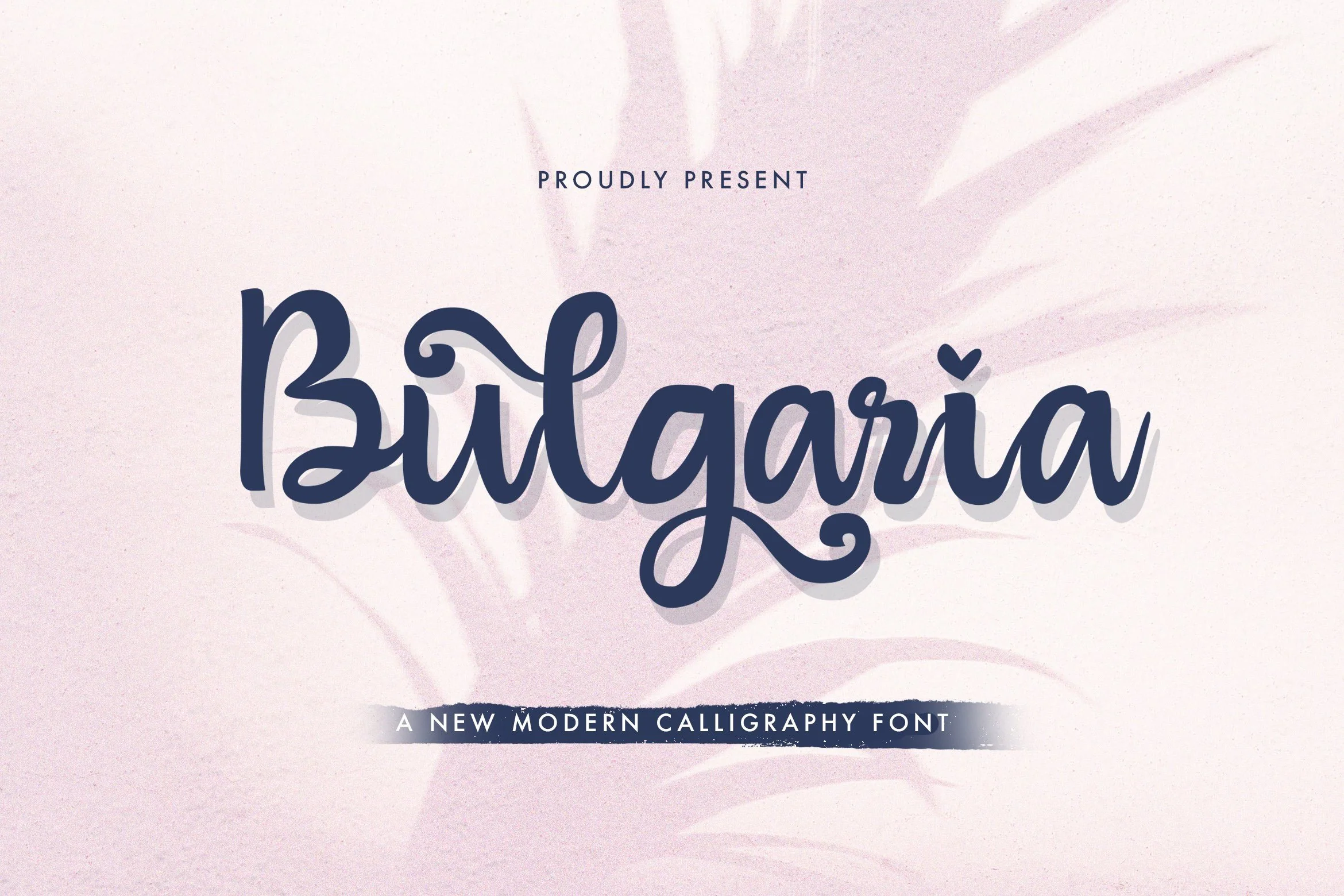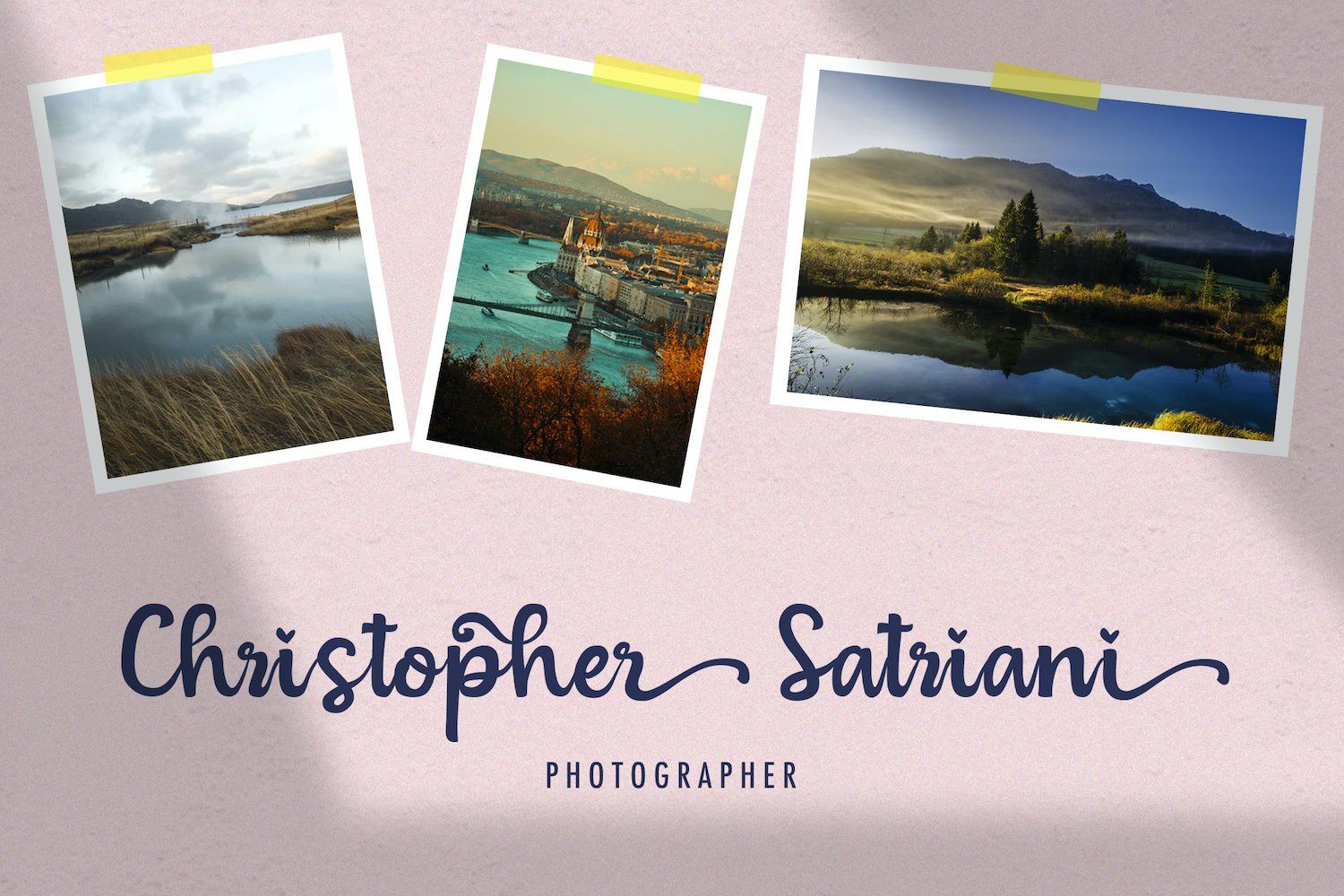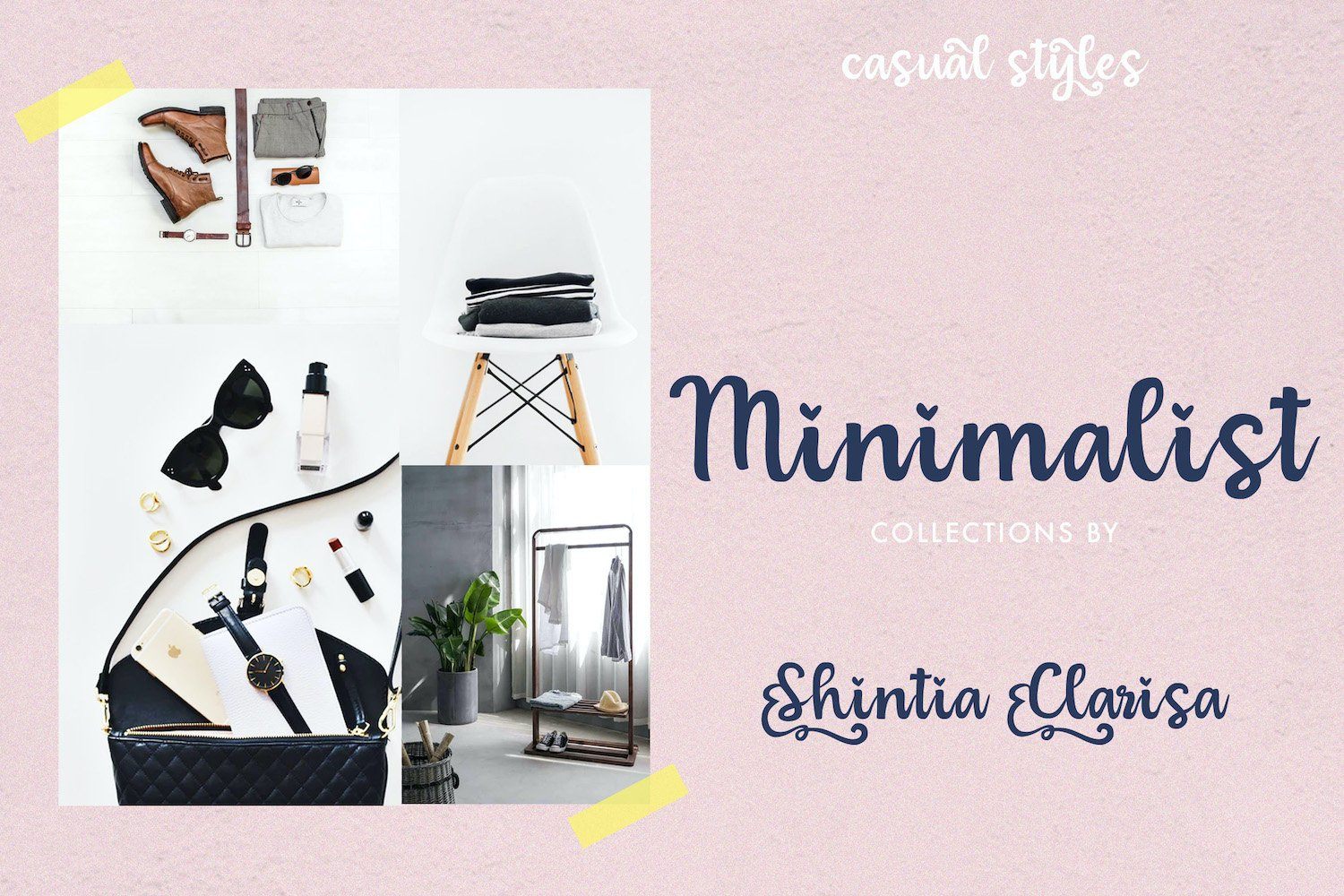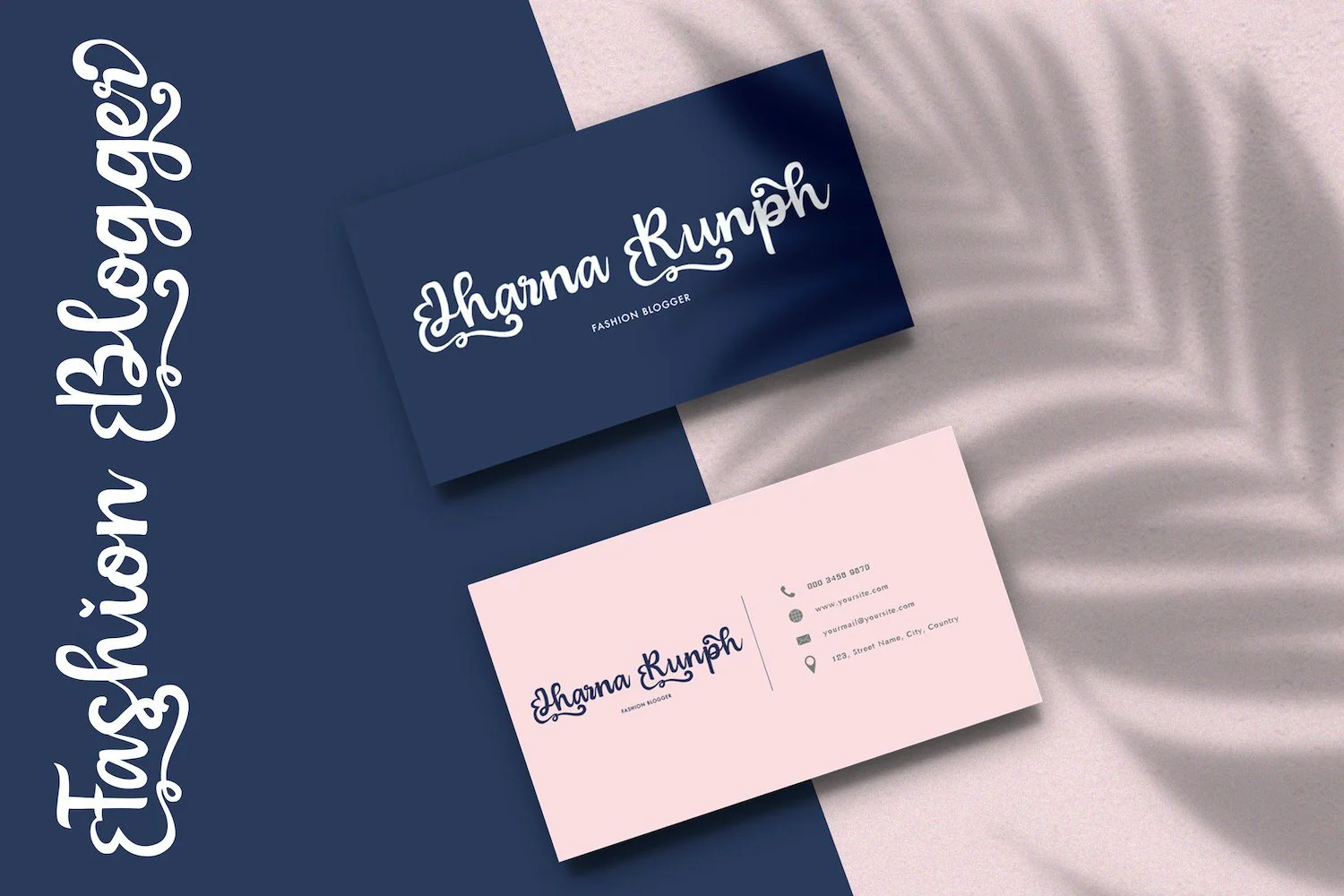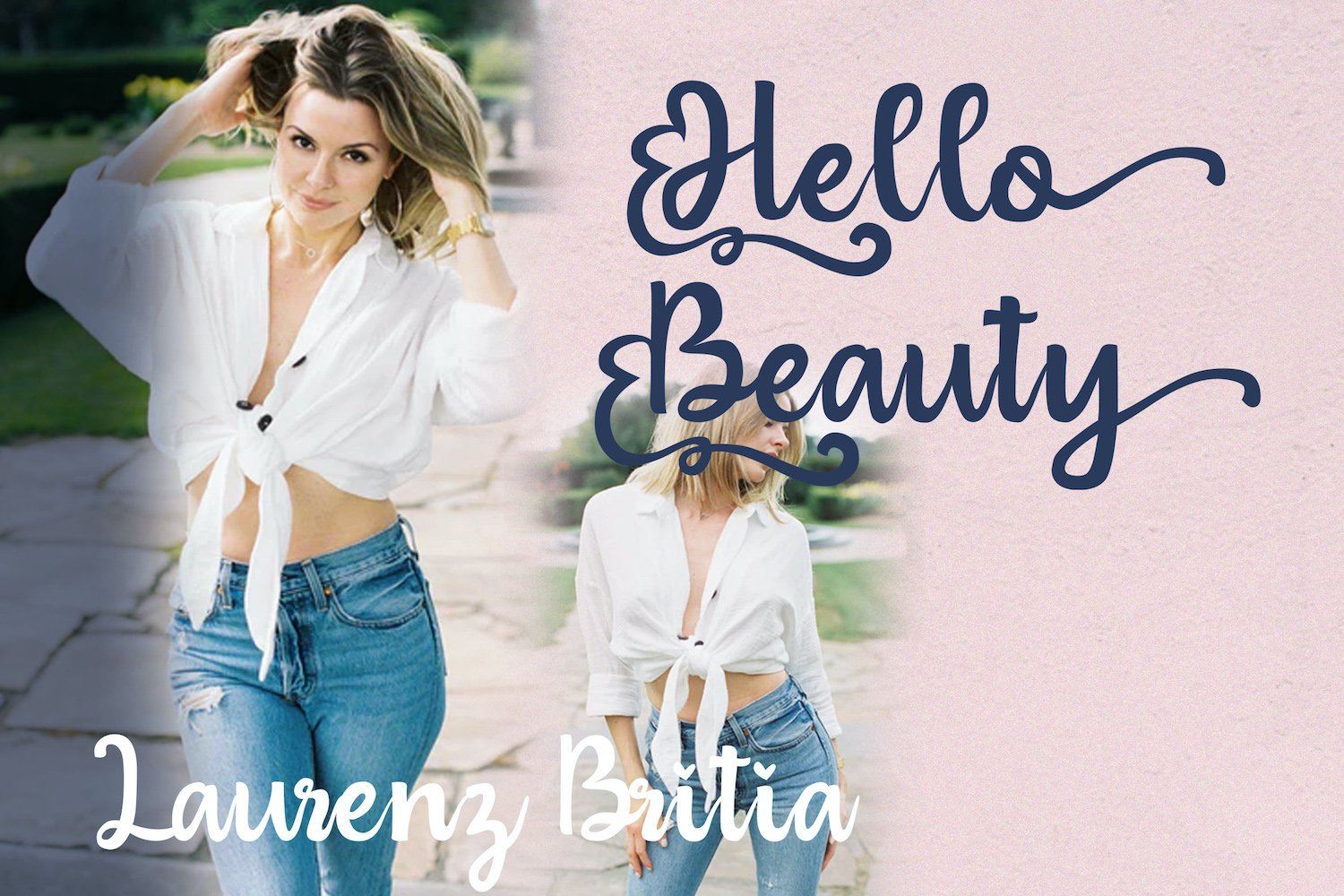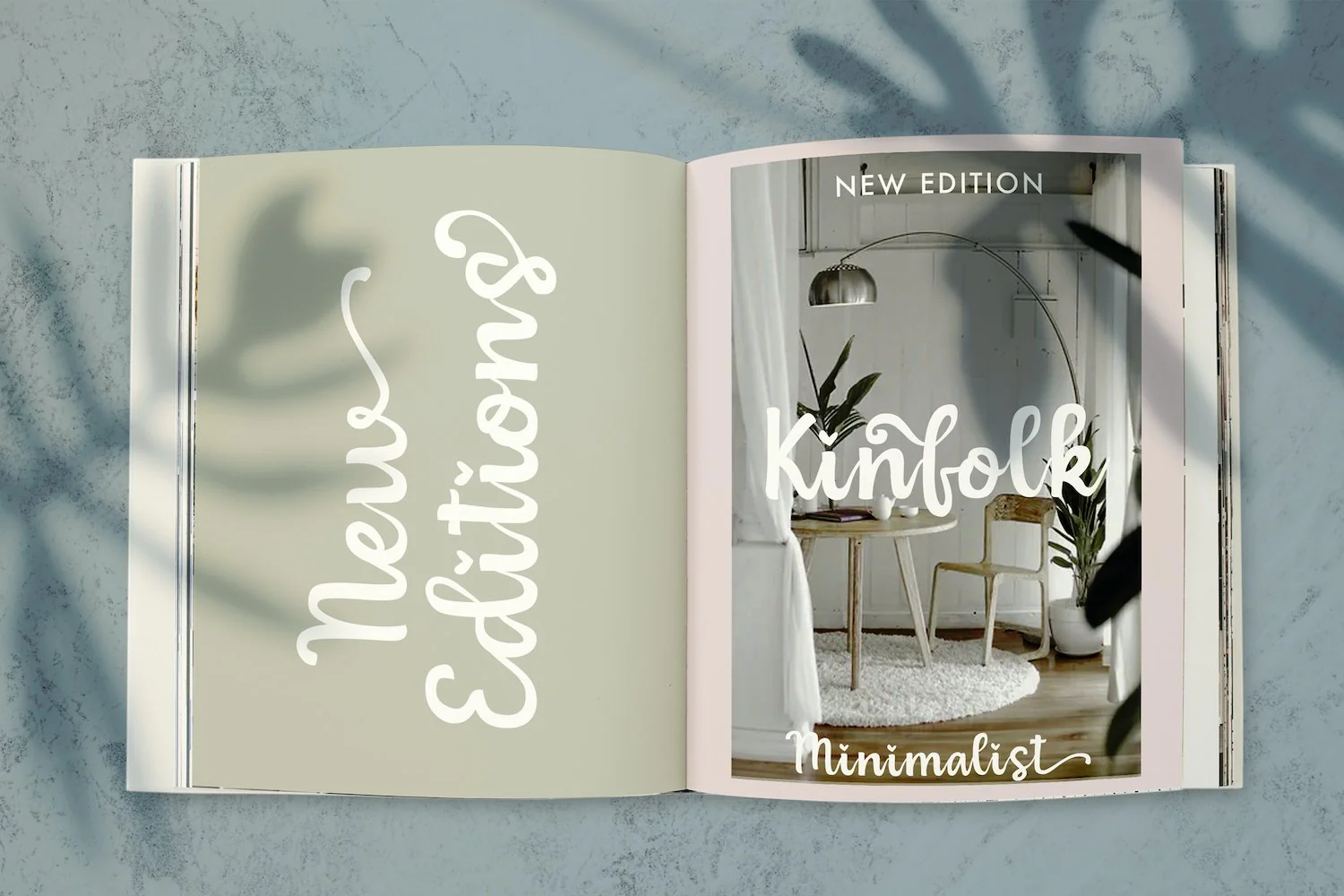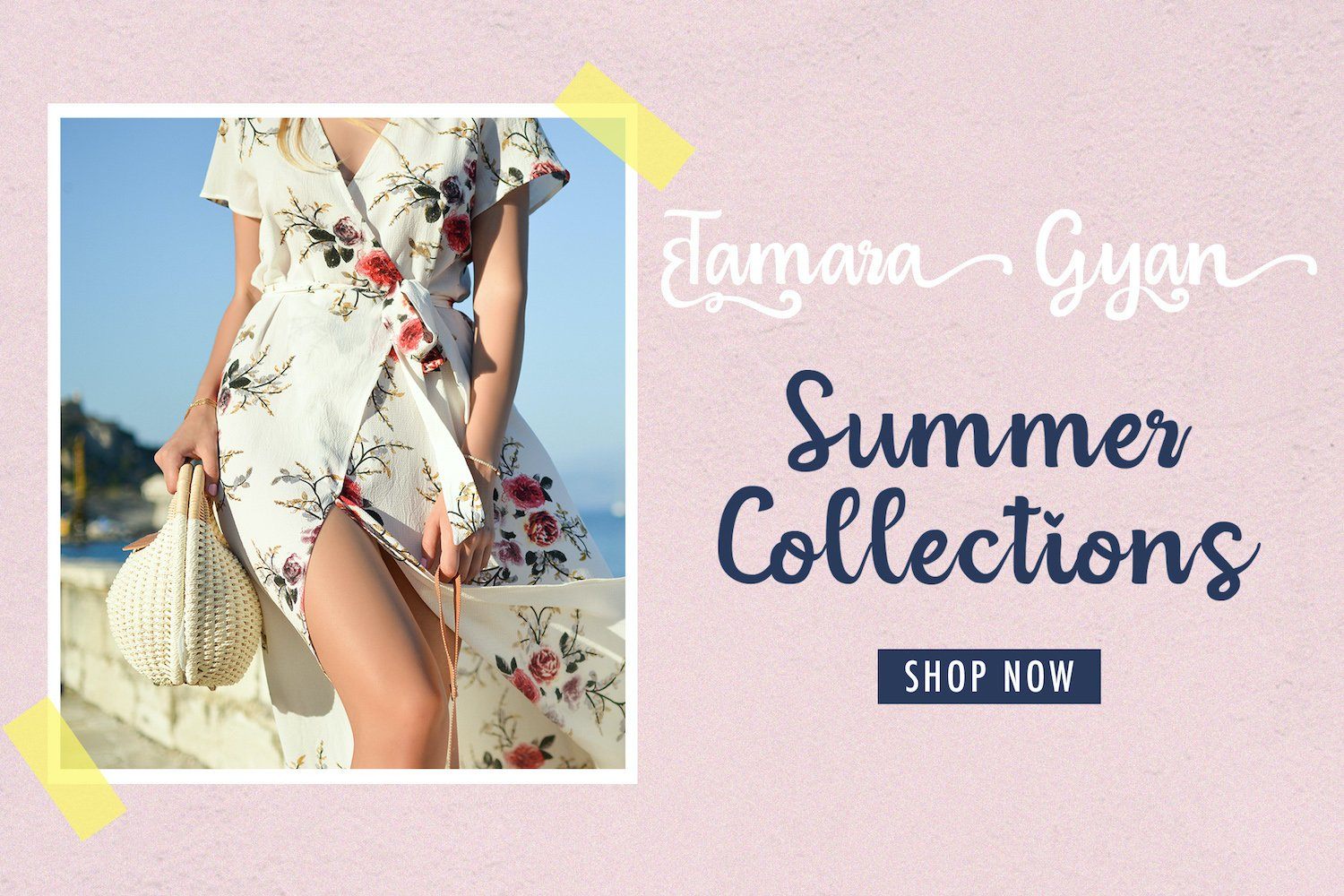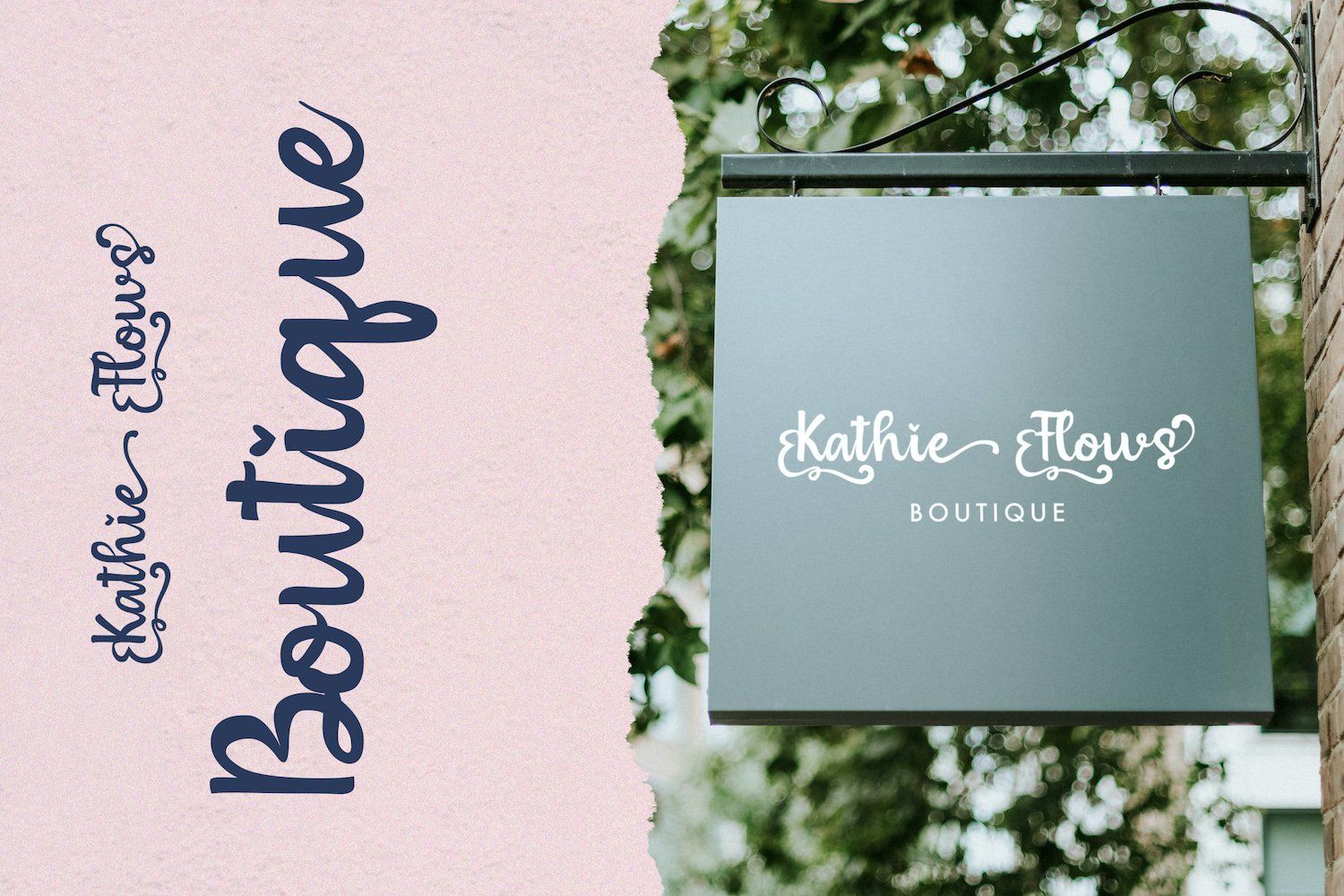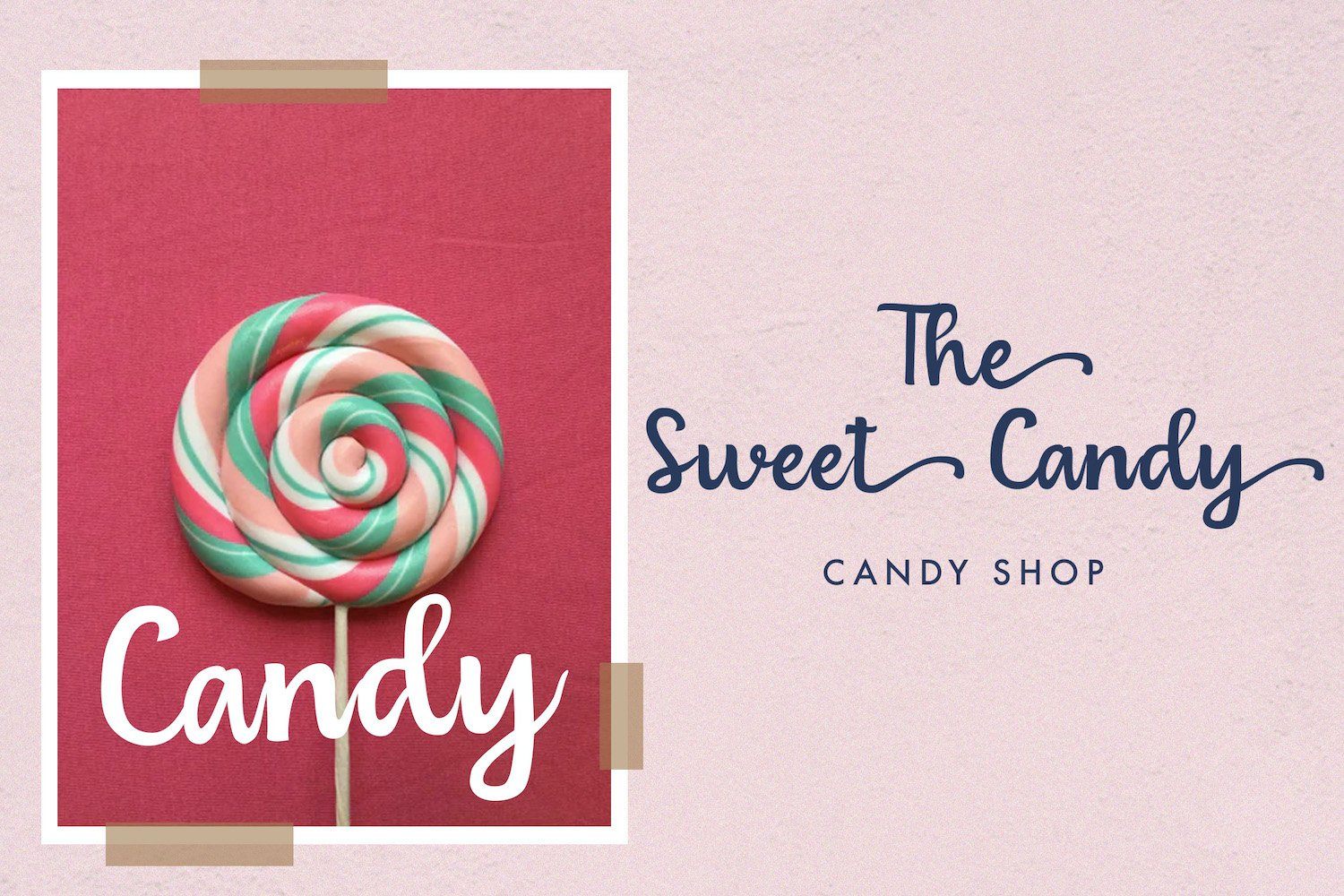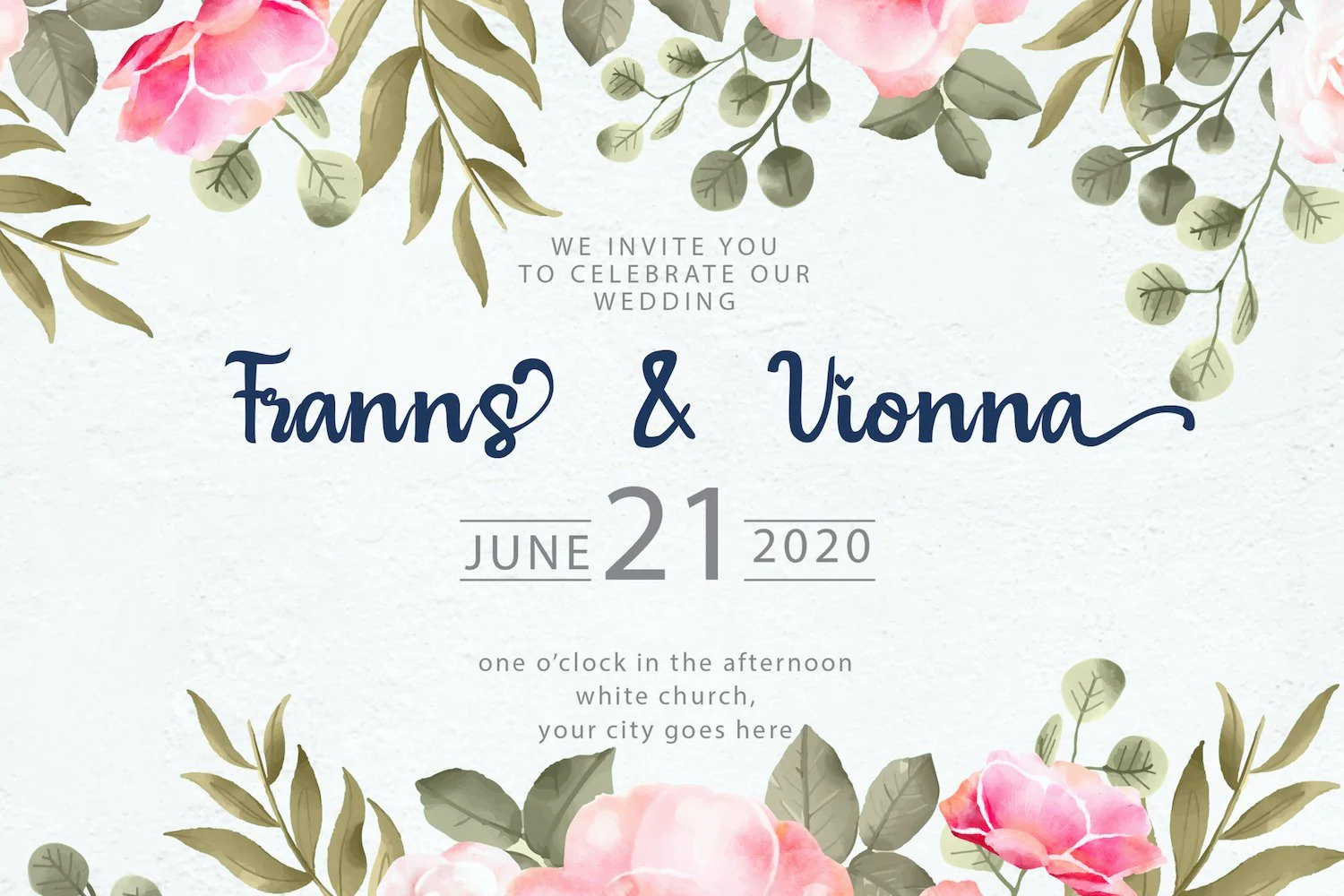
Bulgaria - Modern Calligraphy Font
Introducing Bulgaria - Modern Calligraphy Font
Bulgaria is a Script Font with Calligraphy Style. The Bulgaria font made with modern digital brush pen strokes that making this font look beautiful. This font is perfect for fashion brand, wedding invitation, business card, logo brand, signature, and then calligraphy.
This Font contains Elegant, Creative, Beautiful and has a Unique Concept.
- Swash